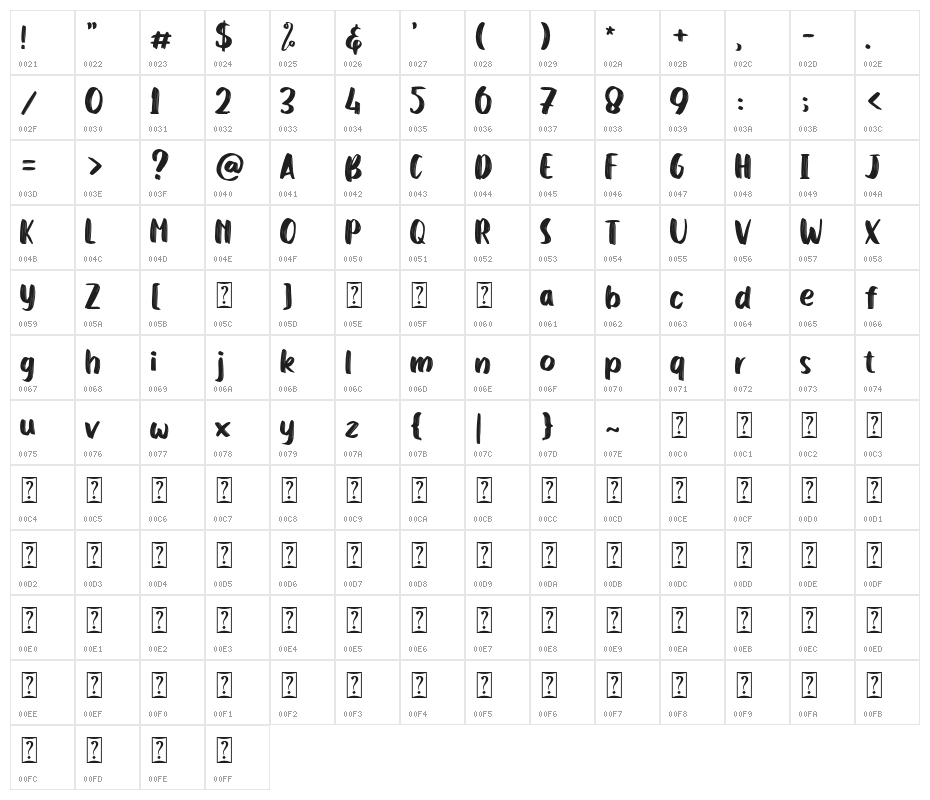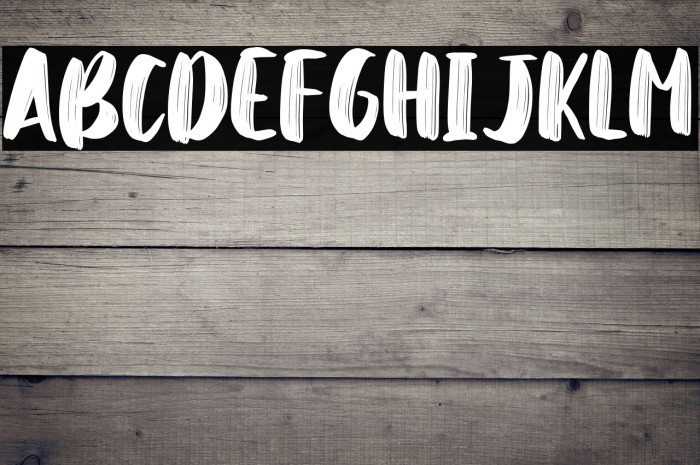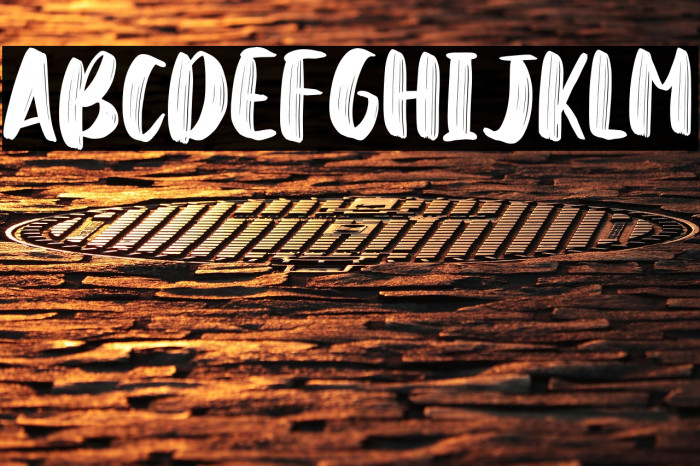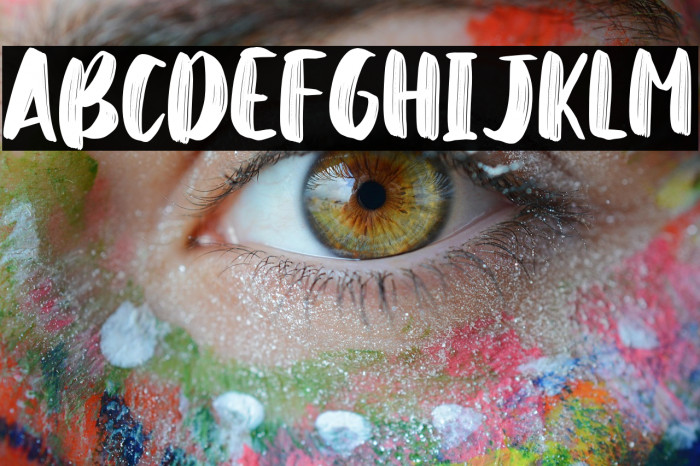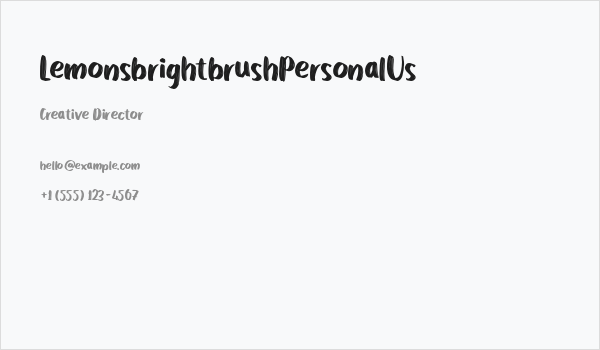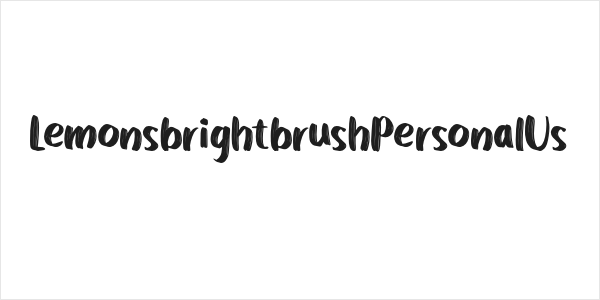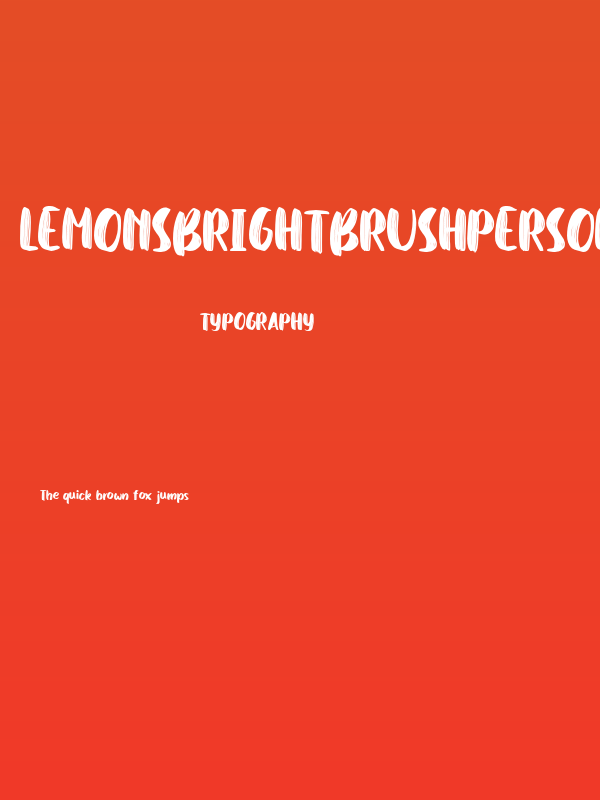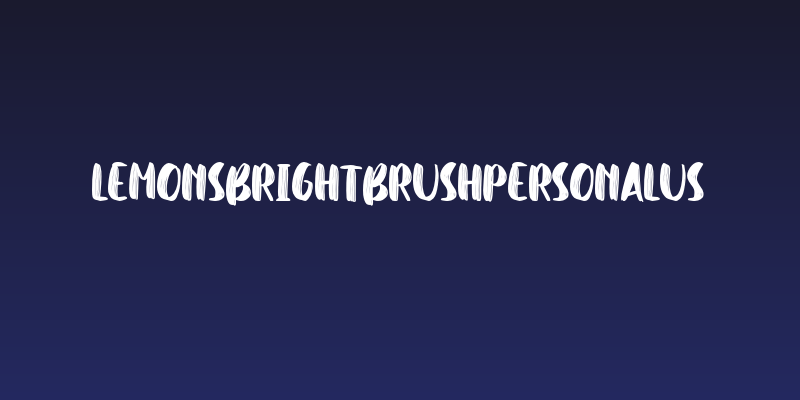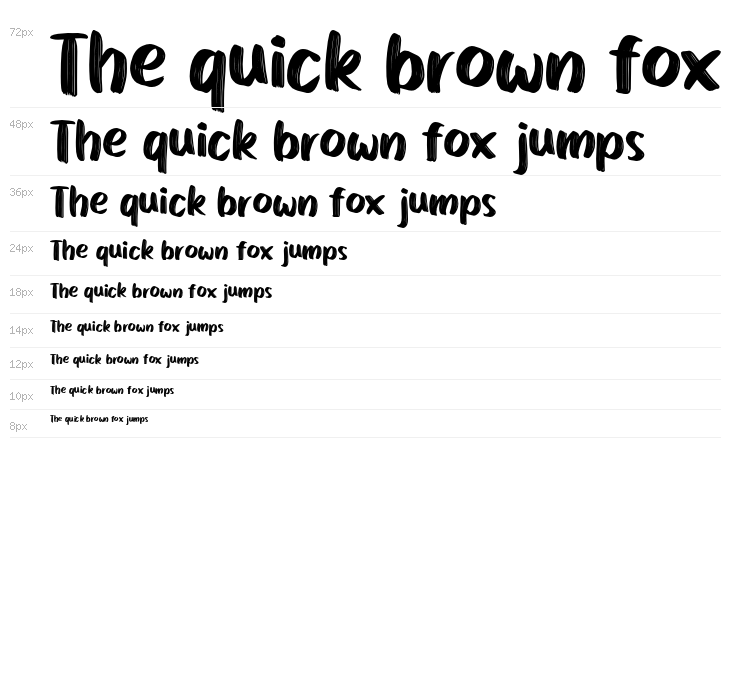
LemonsbrightbrushPersonalUs Font
LemonsbrightbrushPersonalUs Description
This font features a bold, brush-like style with a hand-painted appearance. The strokes are thick and dynamic, giving a sense of movement and energy. The uppercase and lowercase letters maintain a consistent style, with rounded edges and a slightly irregular baseline that enhances its casual and artistic feel. Numbers and special characters are equally expressive, making them stand out in any design. The overall look is playful yet impactful, suitable for projects that require a personal and creative touch.
| Proposed Projects | Ideal for branding, posters, social media graphics, and creative projects that require a lively and artistic touch. |